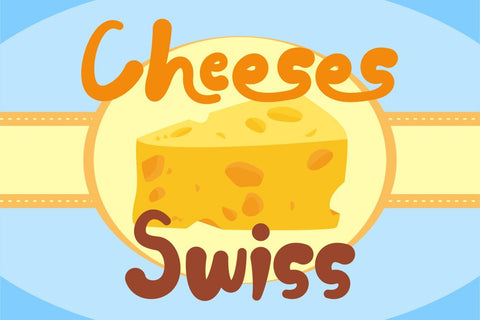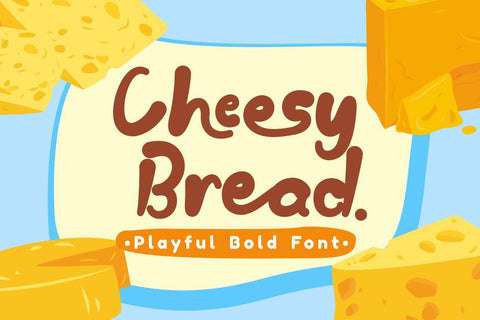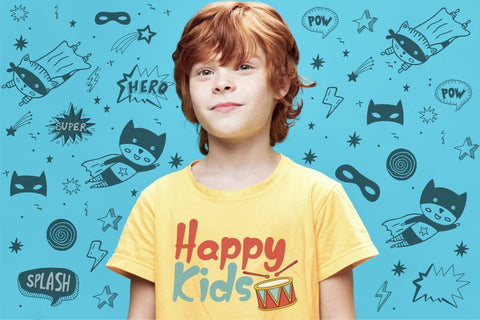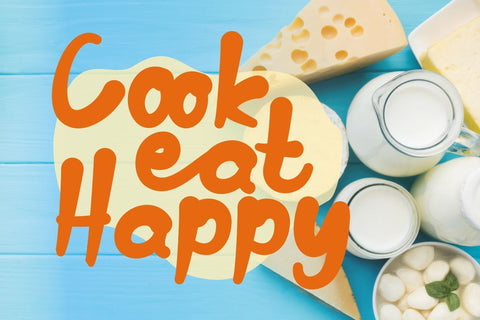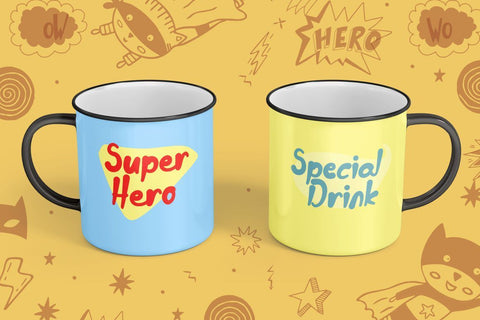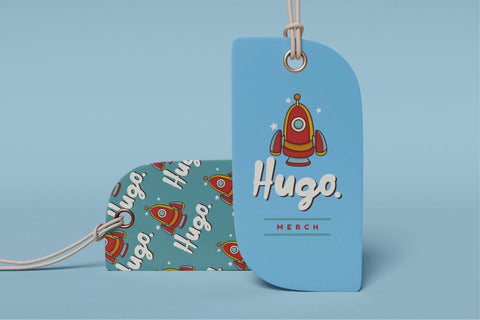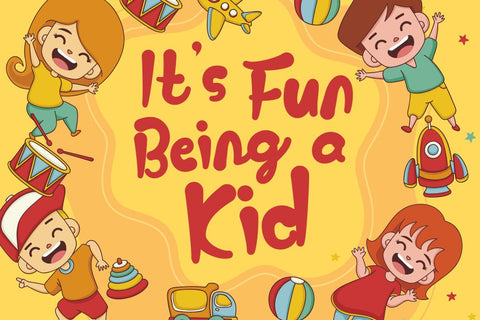
Cheesy Bread - Playful Bold Font
Introducing Cheesy Bread, a super playful bold font. This font is perfect for your projects related to kids, which is playful and fun. This font also has 2 versions, clean and rough. Cheesy Bread also perfect for branding design, posters, apparel, logotype, header, quote, invitation, greeting card, cover, poster, fashion design and any more.
Come with lot of ligatures character, its help you to make great lettering. This font is also support multi language.